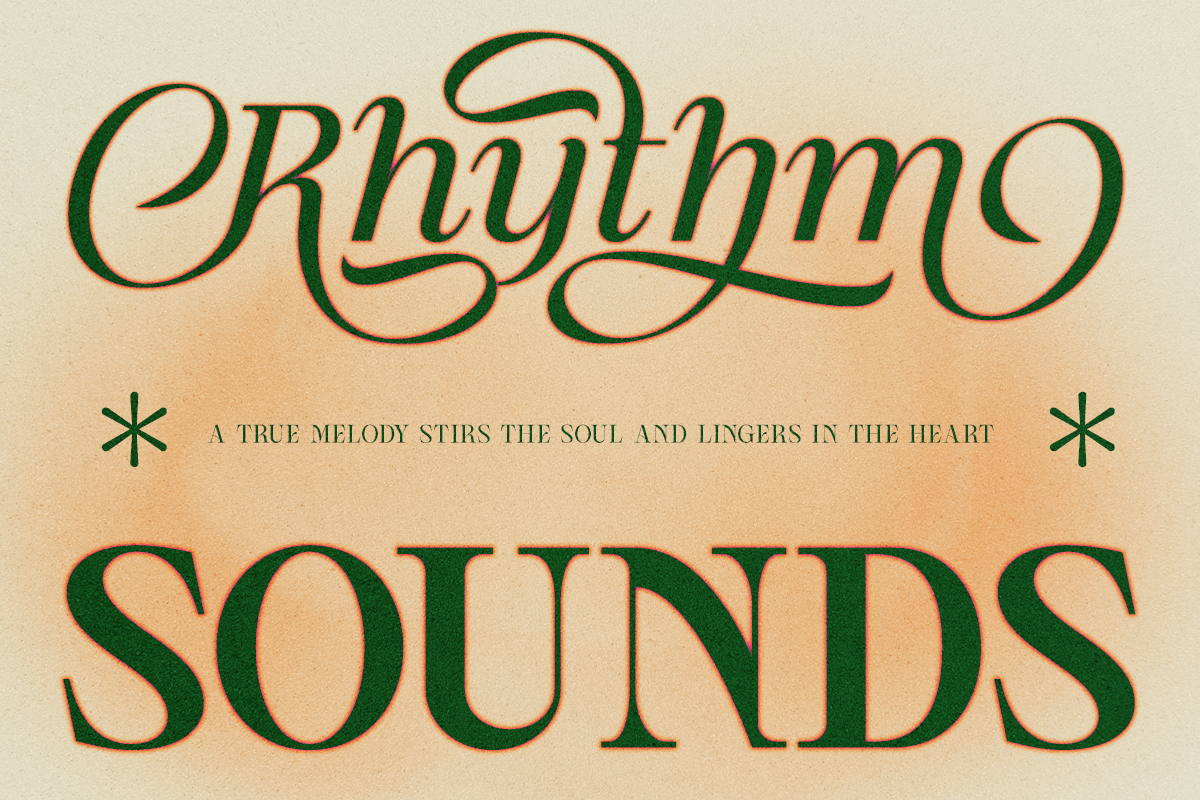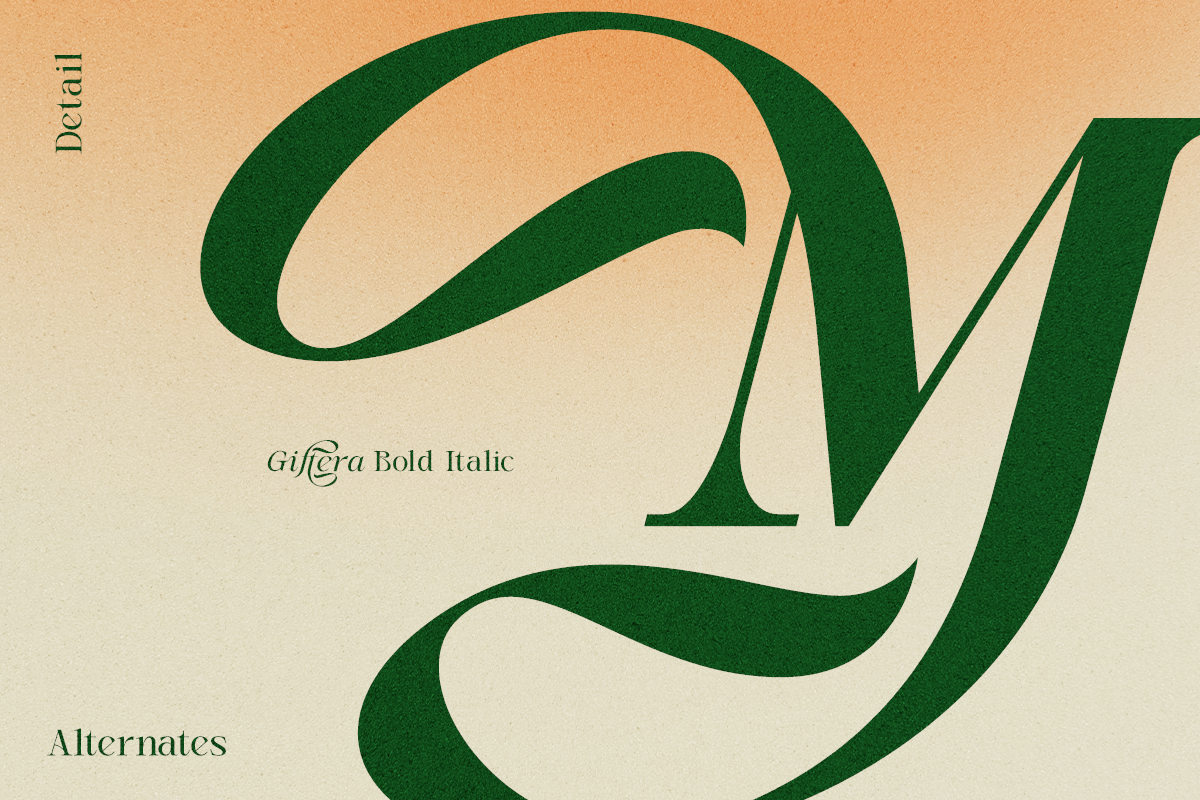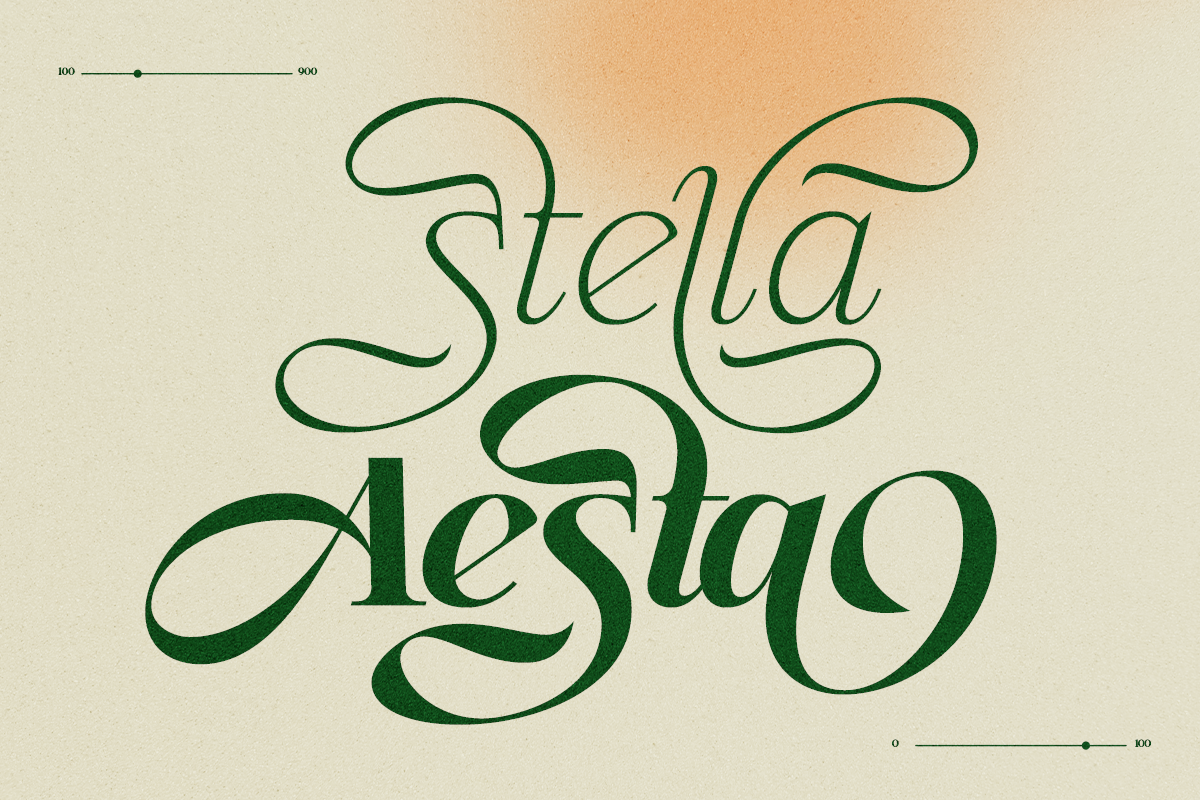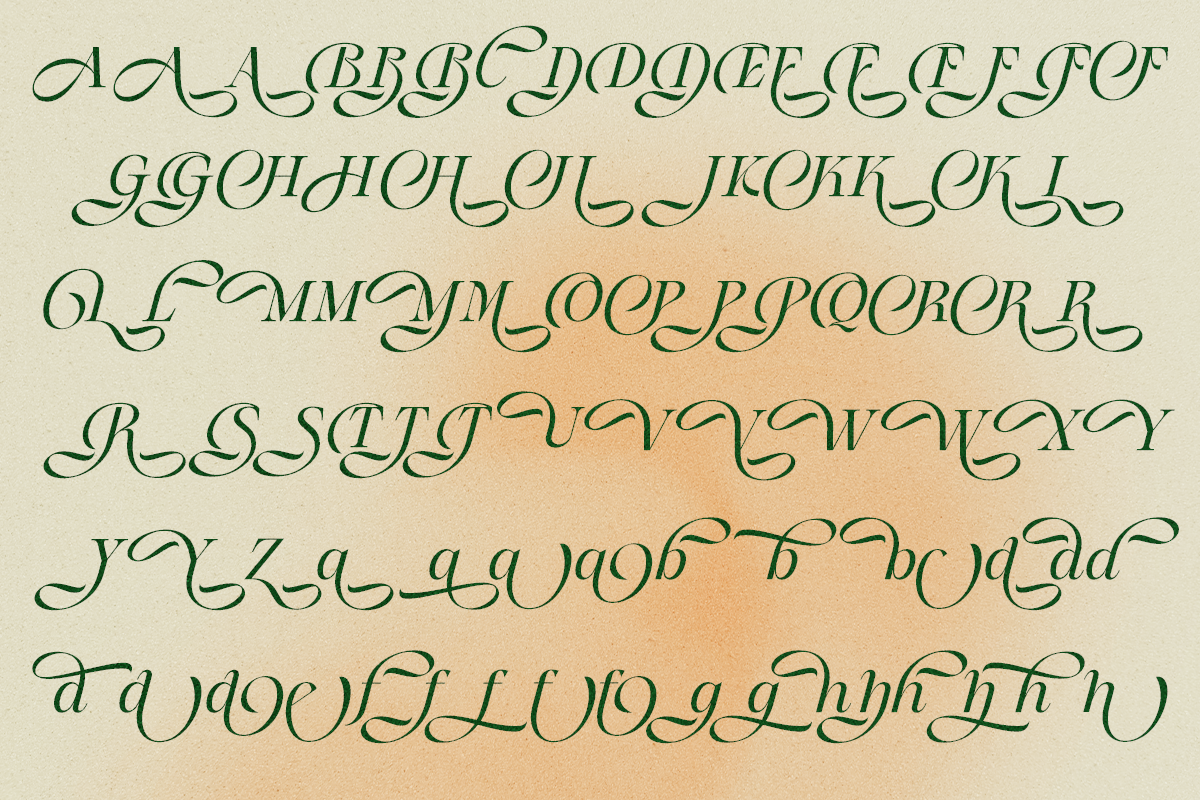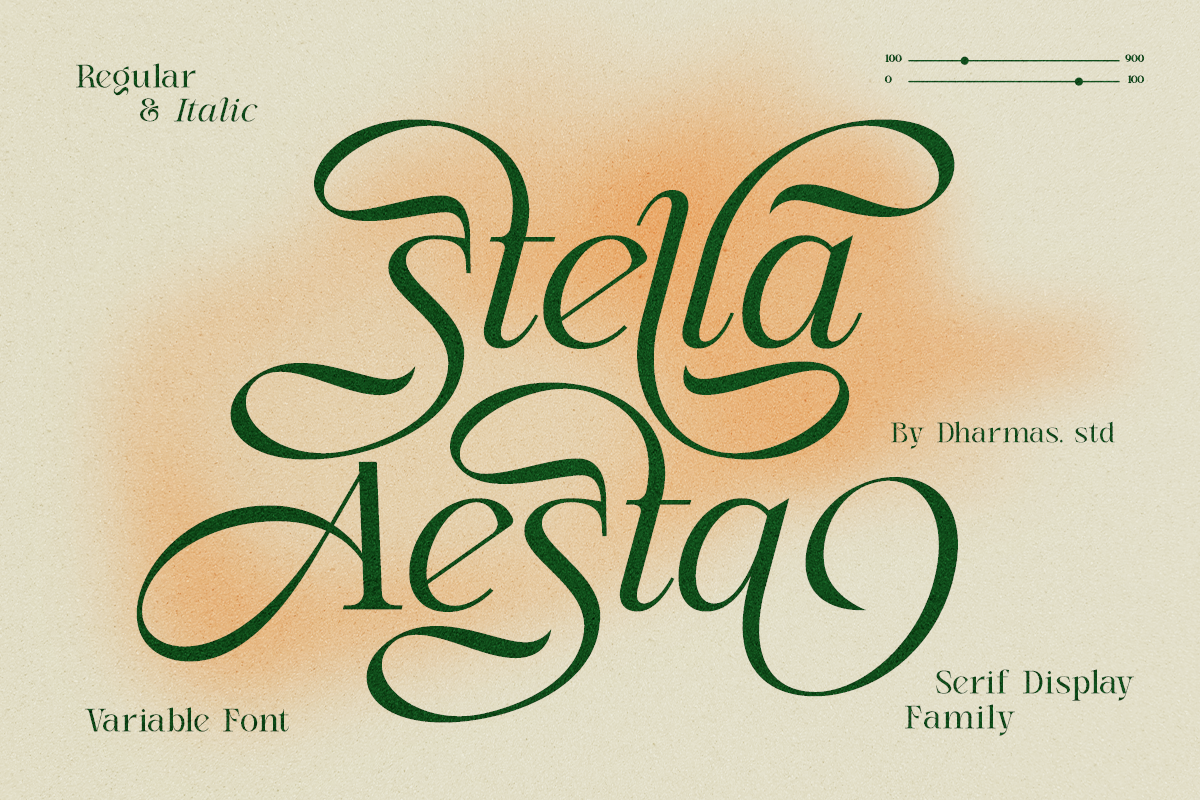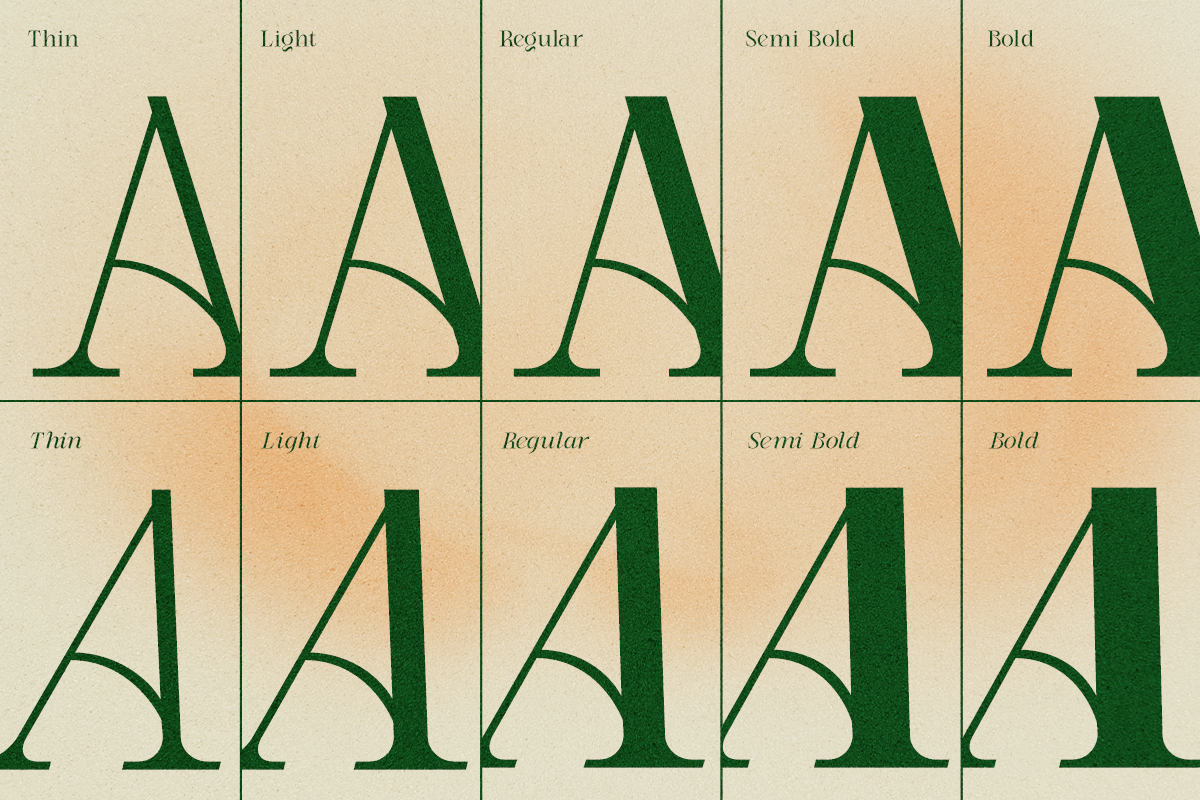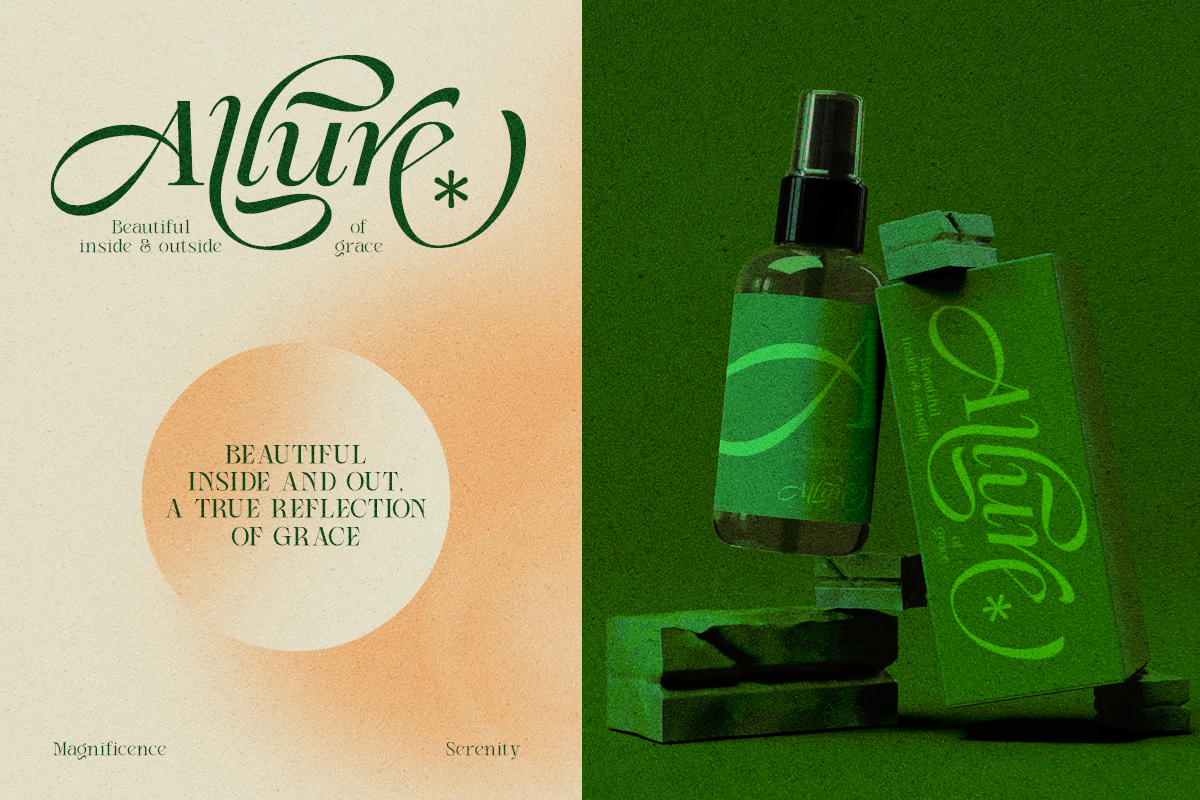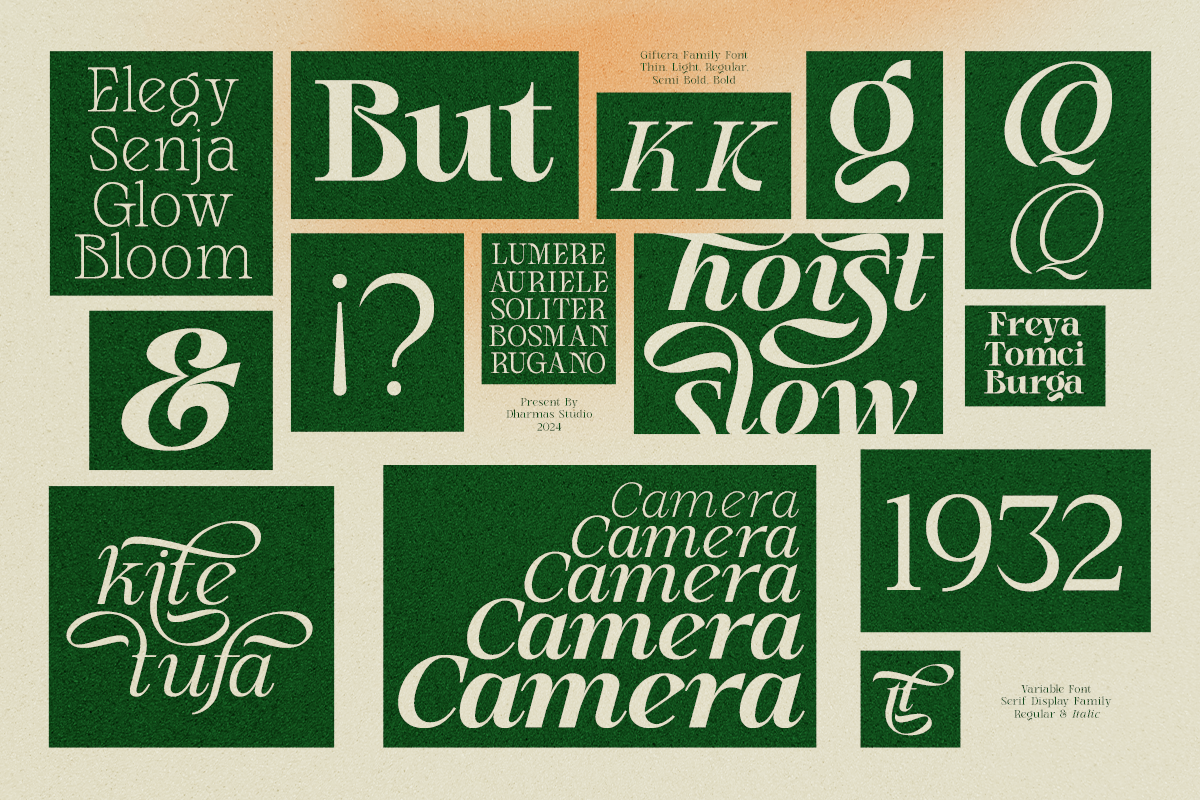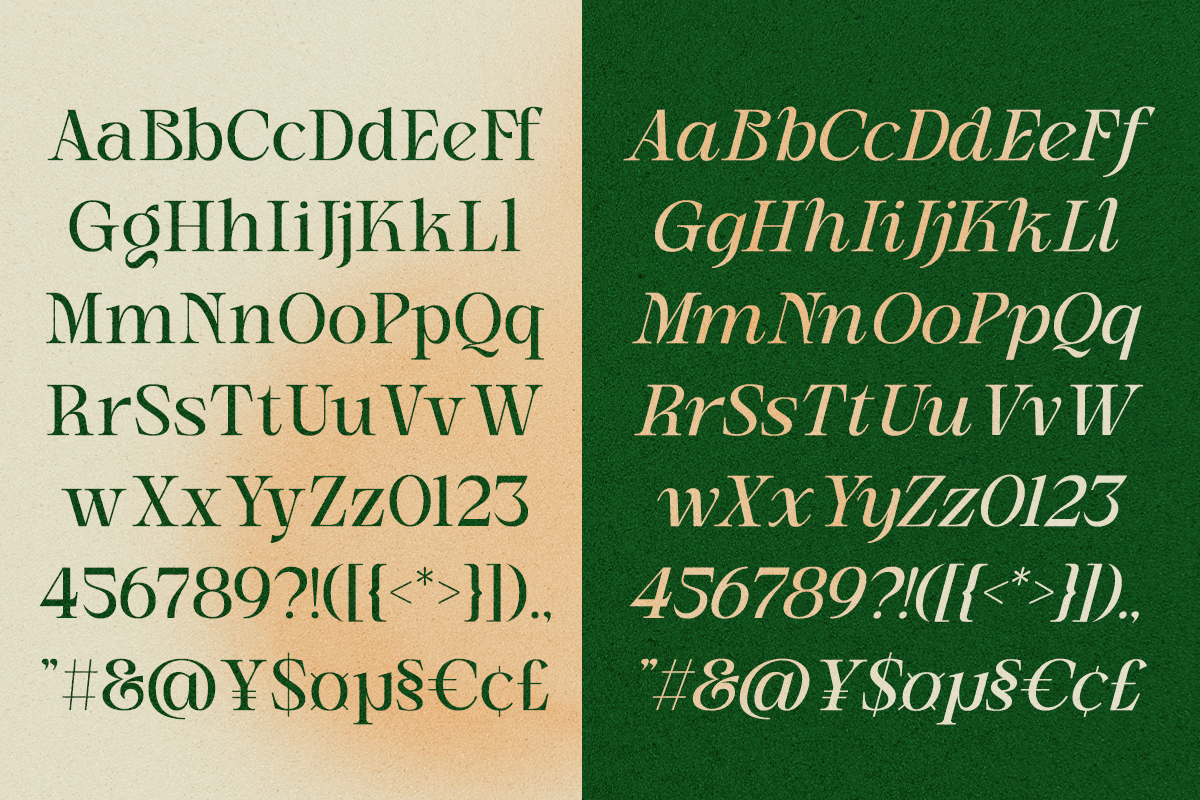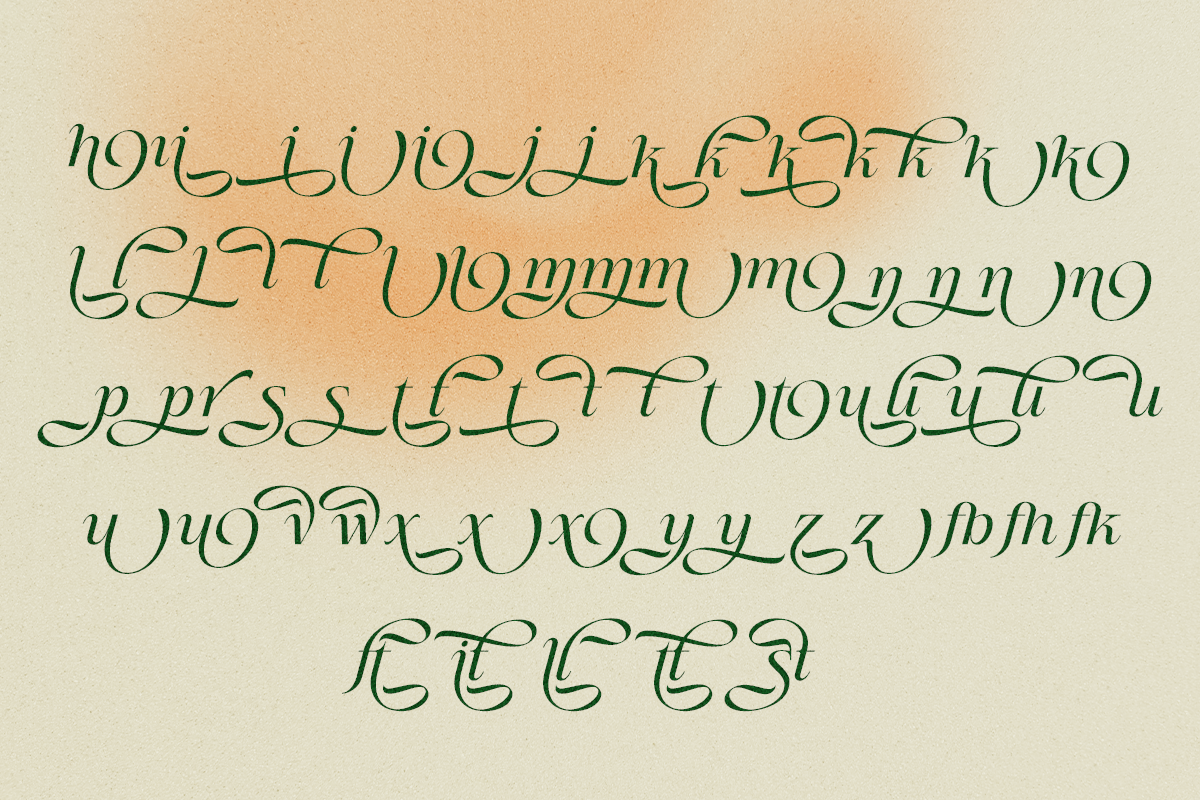
Stella Aesta - 10 Butterfly Font
Stella Aesta is a butterfly swash display font family created for luxury branding, wedding stationery, beauty packaging, fashion campaigns, and editorial publishing. Designed for logos, invitations, product packaging, and magazine headlines, Stella Aesta creates an elegant visual identity for print and digital projects. Inspired by delicate butterfly wings, the overall look feels romantic, graceful, and timeless.
Stella Aesta Font Features:
10 Styles (5 Weights + Italic): Light, Light Italic, Regular, Italic, Medium, Medium Italic, Semi Bold, Semi Bold Italic, Bold, Bold Italic
157+ Unique Alternates and Ligatures
Letters, numbers, symbols, punctuation, special alternates
Multilingual Characters available for:
Afrikaans, Albanian, Asu, Basque, Bemba, Bena, Breton, Chiga, Cornish, Dutch, English, Estonian, Filipino, Finnish, Friulian, Galician, German, Gusii, Indonesian, Irish, Italian, Kabuverdianu, Kalenjin, Kinyarwanda, Luo, Luxembourgish, Luyia, Machame, Makhuwa-Meetto, Makonde, Malagasy, Manx, Morisyen, North Ndebele, Nyankole, Oromo, Portuguese, Quechua, Romansh, Rombo, Rundi, Rwa, Samburu, Sango, Sangu, Scottish Gaelic, Sena, Shambala, Shona, Soga, Somali, Spanish, Swahili, Swedish, Swiss.